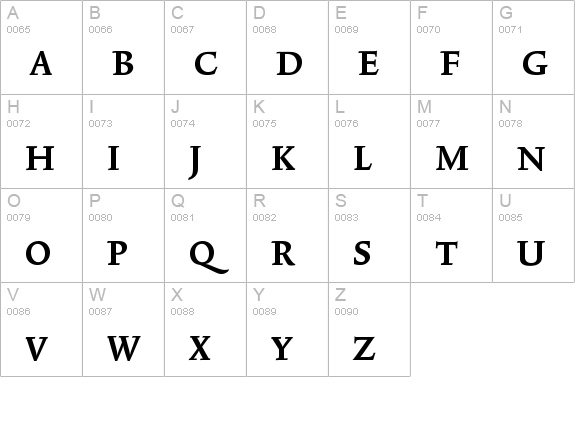
TriniteNo2-BoldTab font is a stunning display typeface that exudes confidence and boldness. Its striking and powerful design makes it the perfect choice for headlines, titles, and any project that requires a strong visual impact. Featuring sharp edges and clean lines, TriniteNo2-BoldTab commands attention and effortlessly grabs the viewer's gaze. Its bold weight adds an extra level of emphasis, making it ideal for conveying important information or creating a memorable brand identity. This font's versatility is further accentuated by its tabular figures. With evenly spaced characters, TriniteNo2-BoldTab ensures flawless alignment in tables, charts, and any application that requires organized data presentation. And the best part? TriniteNo2-BoldTab font is available for free! You read that right. This outstanding typeface can be freely downloaded at FontsMarket.com, allowing designers, creatives, and enthusiasts alike to access its exceptional qualities without any cost. Whether you are working on a professional project or simply want to elevate your personal designs, TriniteNo2-BoldTab font is a remarkable choice. Its boldness, clarity, and the fact that it is freely available will undoubtedly make it a go-to font for many designers seeking to make a lasting impression.